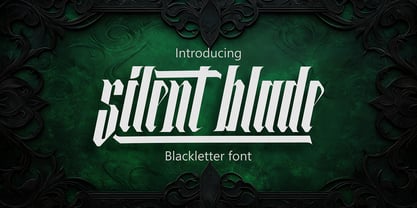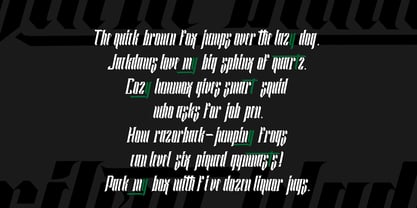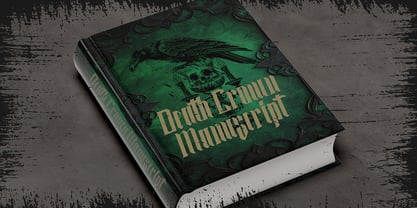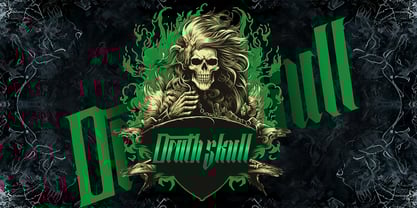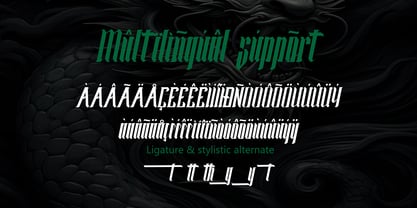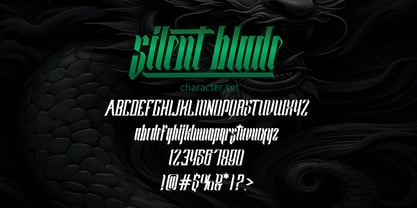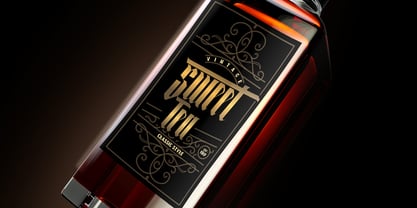
Silent Blade
Silent Blade is a blackletter typeface that merges medieval craftsmanship with a bold modern edge. Inspired by ancient gothic scripts and reimagined for today’s designers, it delivers a commanding visual presence that’s perfect for branding, apparel, posters, and editorial designs. Every letterform in Silent Blade was designed with precision — tall, angular, and confident. The vertical strokes feel like cuts from a blade, while the subtle flares and diagonal motions give each letter motion and grace. This balance between structure and aggression makes Silent Blade one of the most striking display blackletters available. It embodies the spirit of dark elegance and fearless artistry, perfect for projects that demand sophistication with attitude. The modern detailing and digital accuracy make it equally powerful in print and on screen. Silent Blade includes Uppercase, Numbers, and Punctuation, along with Multilingual Support and Stylistic Alternates that allow you to experiment with ornamental variations and unique flourishes. These alternates give your compositions flexibility — from traditional gothic to a more experimental, stylized direction. Design Applications: Heavy metal and gothic branding Album covers, posters, and tattoos Medieval-themed events or packaging Fantasy books and gaming titles High-contrast editorial design Why Choose Silent Blade: Silent Blade doesn’t whisper — it commands attention. Its gothic forms are refined for modern workflows, ensuring seamless integration with your branding or layout system. It’s ideal for projects that need strength, heritage, and elegance in a single font. Unlike overly decorative blackletters, Silent Blade achieves clarity while retaining its edge. Designers love how it feels timeless yet relevant — perfect for today’s hybrid aesthetic where tradition meets rebellion. Silent Blade embodies the soul of blackletter design while pushing it into the modern age — sharp, structured, and endlessly expressive.